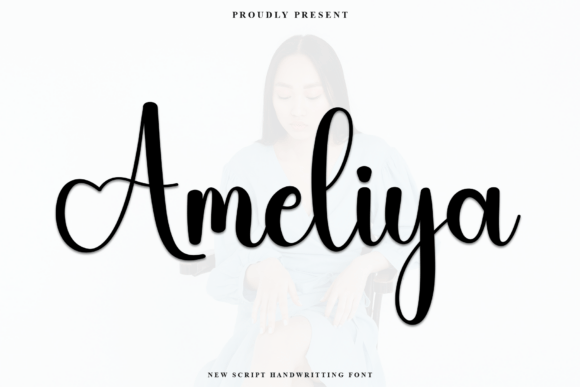
The Ameliya Font: A Charming Handwritten Delight for Designers
I’ll never forget the time I was working on a branding project for a cozy little café, and I just couldn’t find the right font to capture their warm and inviting atmosphere. The client wanted something that felt like a handwritten note, but still looked polished and professional. That’s when I stumbled upon the Ameliya font, and it was love at first sight! 💕
Ameliya is a charming handwritten font that’s filled with a sense of heartfelt perfection. Its smooth strokes and organic lines evoke a relaxed atmosphere, making it perfect for a variety of design projects. Whether you’re working on branding, invitations, or social media graphics, Ameliya is sure to bring a touch of warmth and personality to your designs.
What I Love About Ameliya ✨
- 💫 Smooth and flowing strokes that give it a natural, handwritten feel
- 🎨 Versatile and adaptable to a wide range of design projects
- 👍 OpenType features, including glyphs and stylistic alternates, add an extra layer of creativity
- ⚠️ Some users may find the font a bit too delicate for certain design applications
- 🤔 Limited availability of extended language support
The Story Behind Ameliya
Ameliya was designed by a talented type designer who’s passionate about creating fonts that evoke a sense of warmth and personality. The story goes that the designer was inspired by the handwritten notes and letters of loved ones, and set out to create a font that captured that same feeling. With Ameliya, they’ve succeeded in creating a font that’s both beautiful and relatable.
Q: What is Ameliya font best used for?
A: Ameliya font is best used for designs that require a personal touch, such as branding, invitations, and social media graphics.